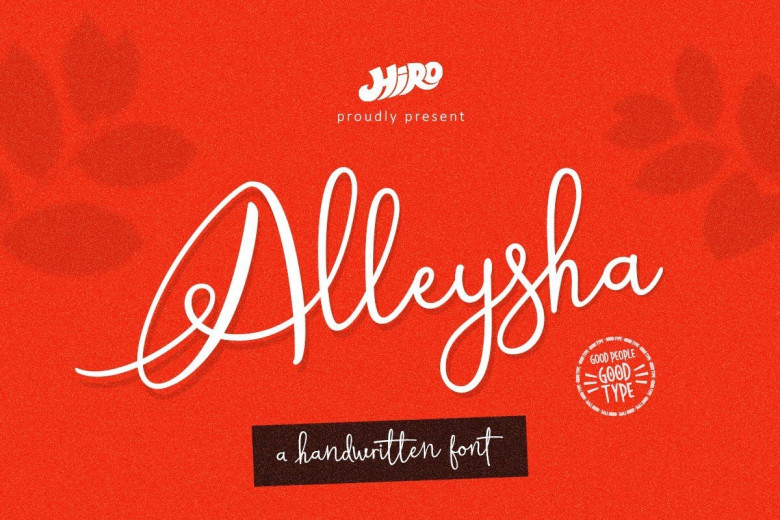
Alleysha Handwritten Script Font
Introduce Alleysha Handwritten Script Font, is a bold messy, casual, carefree script with lovely and Comes with ligatures for a totally unique hand-written feel. It maintains its classy calligraphic influences while feeling contemporary and fresh.